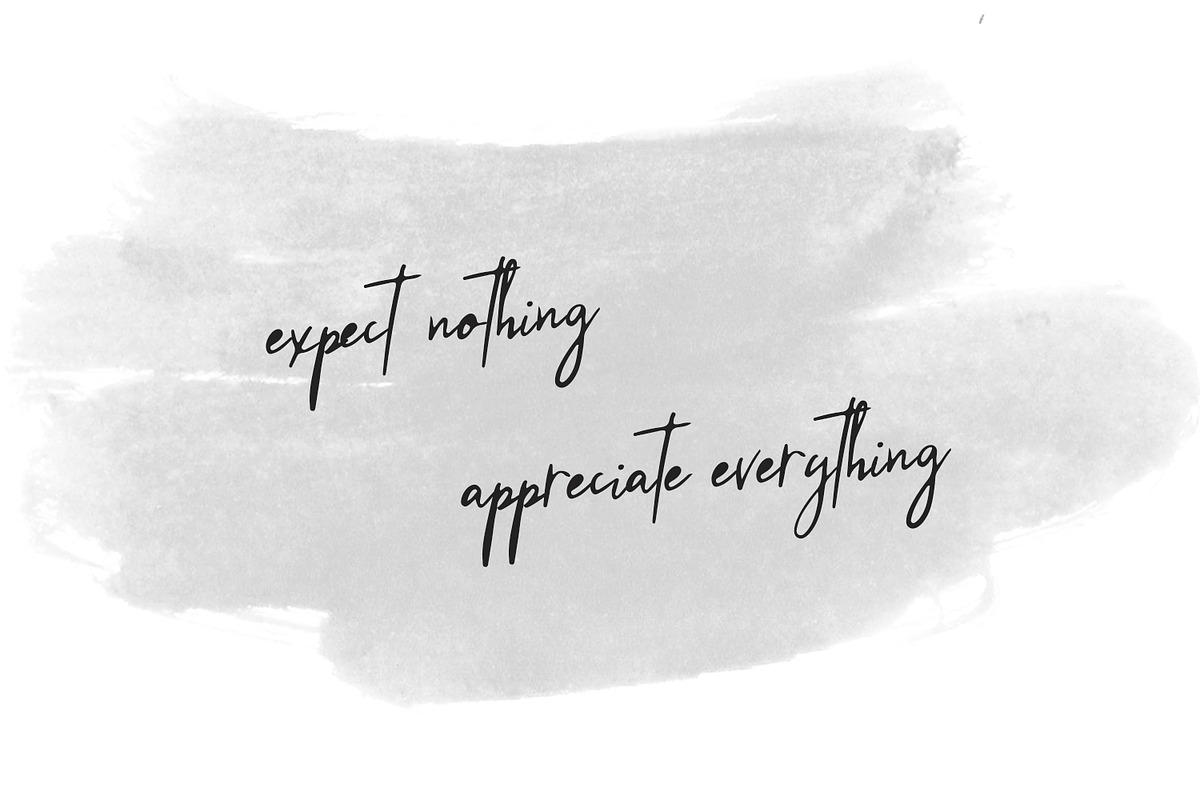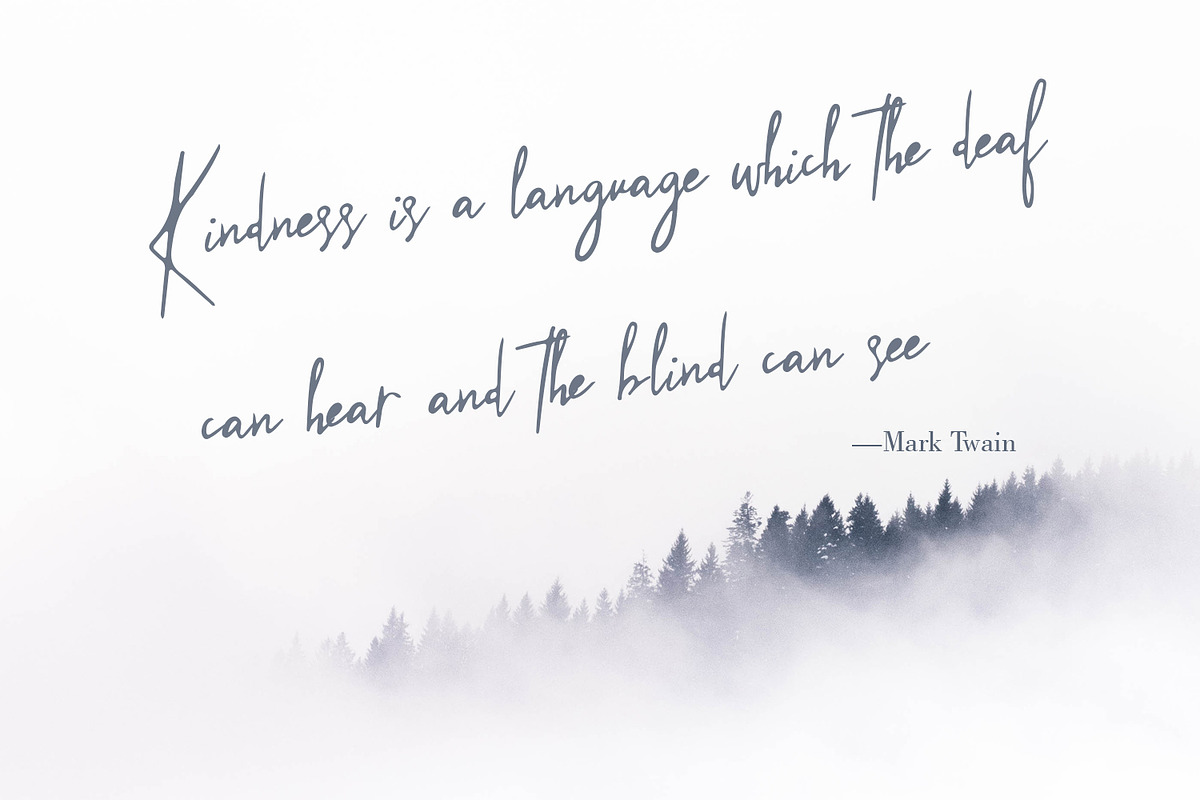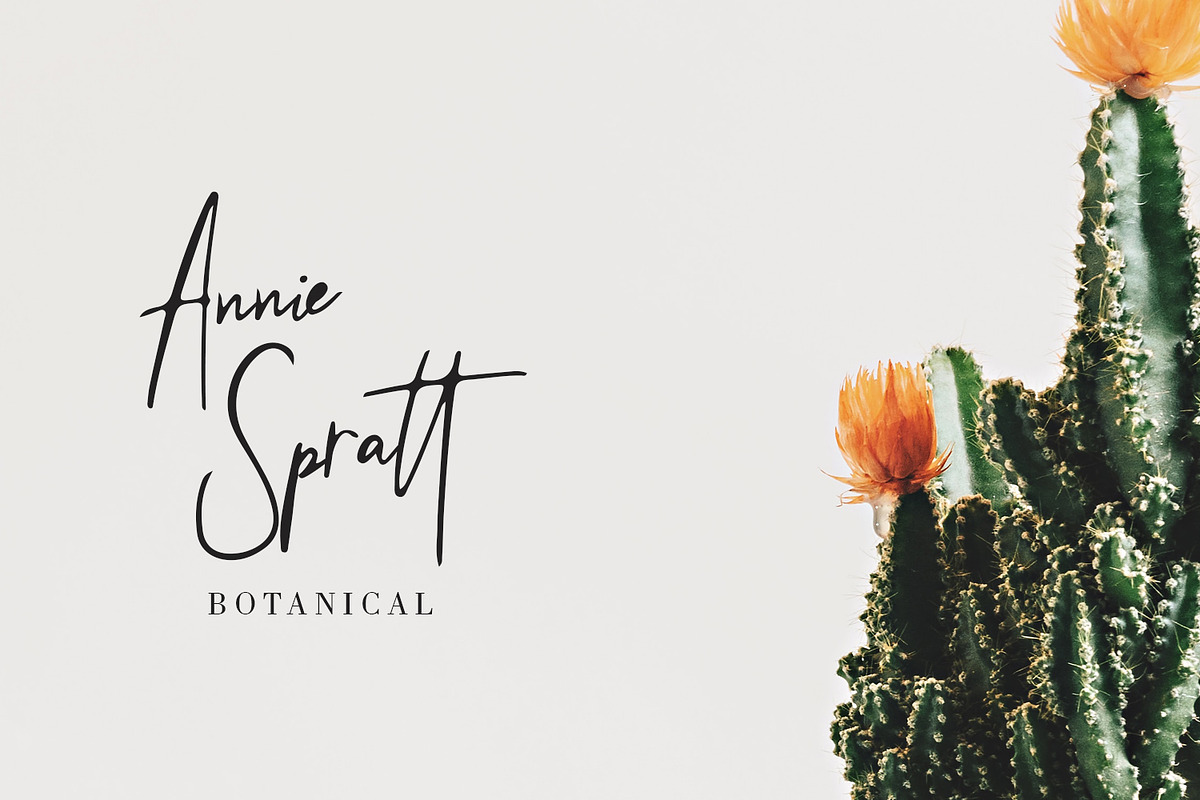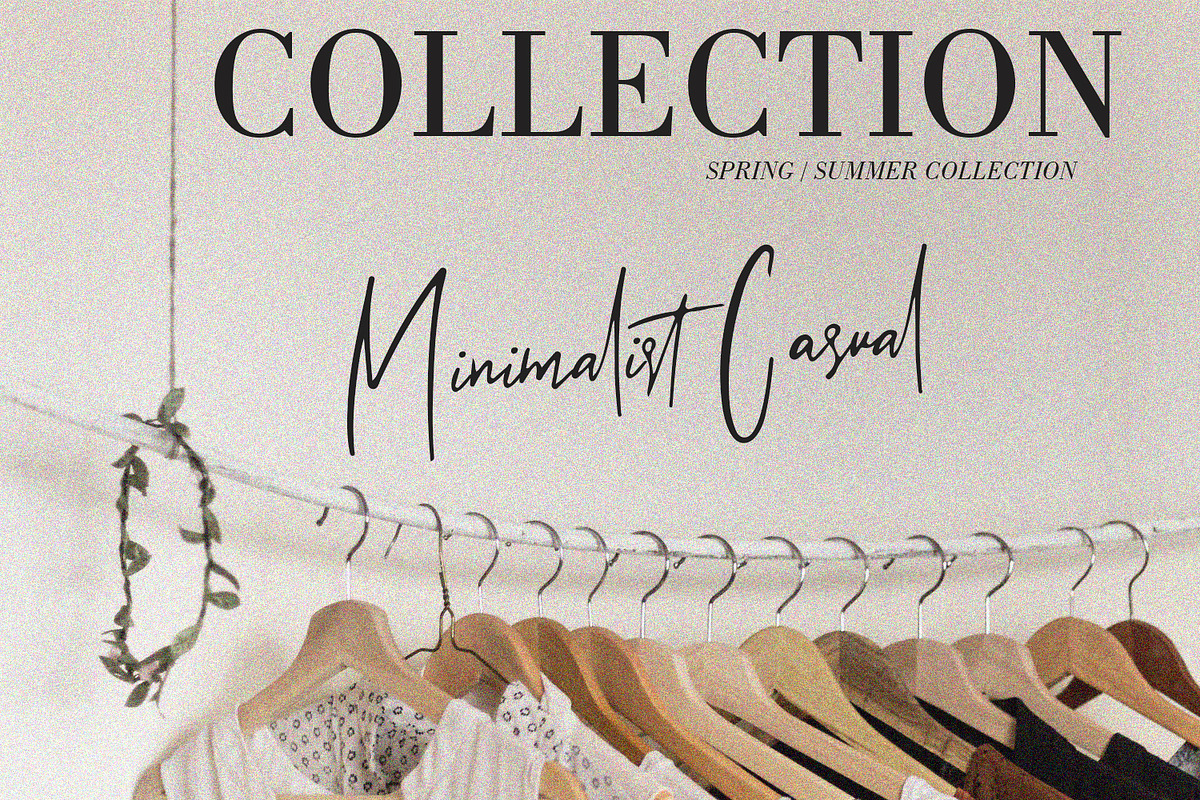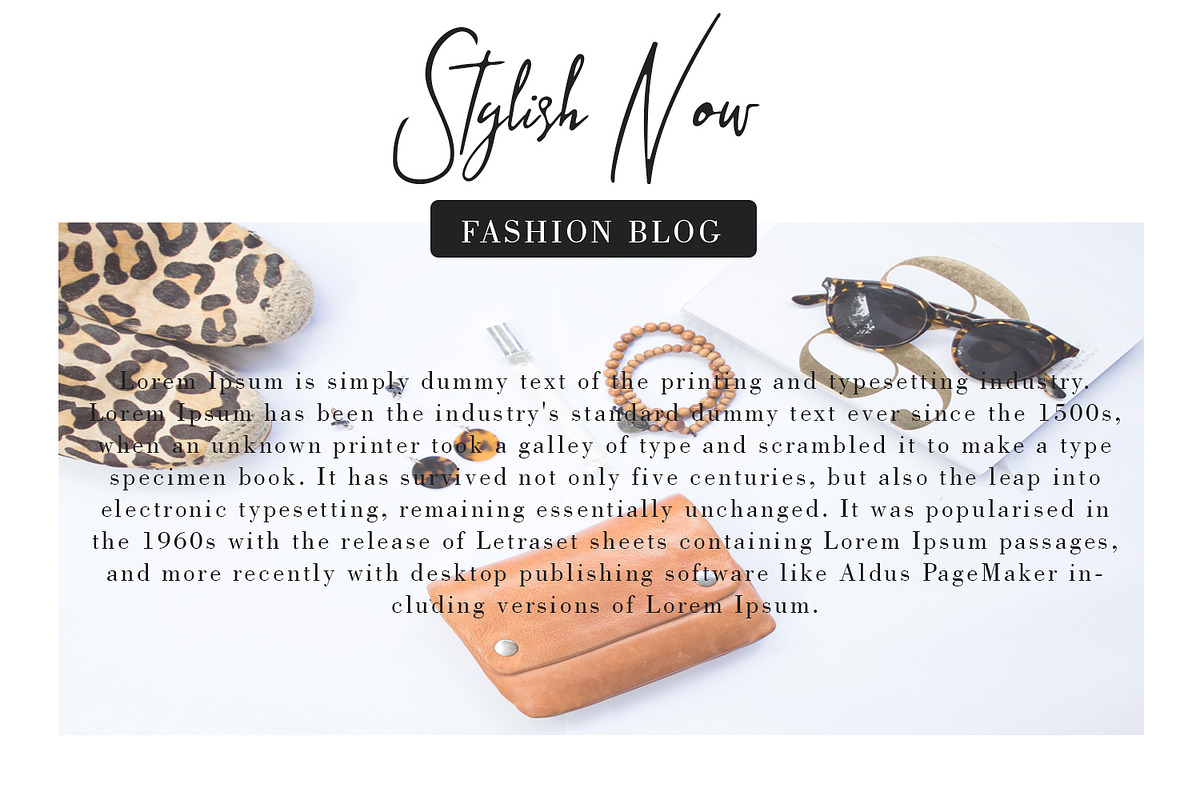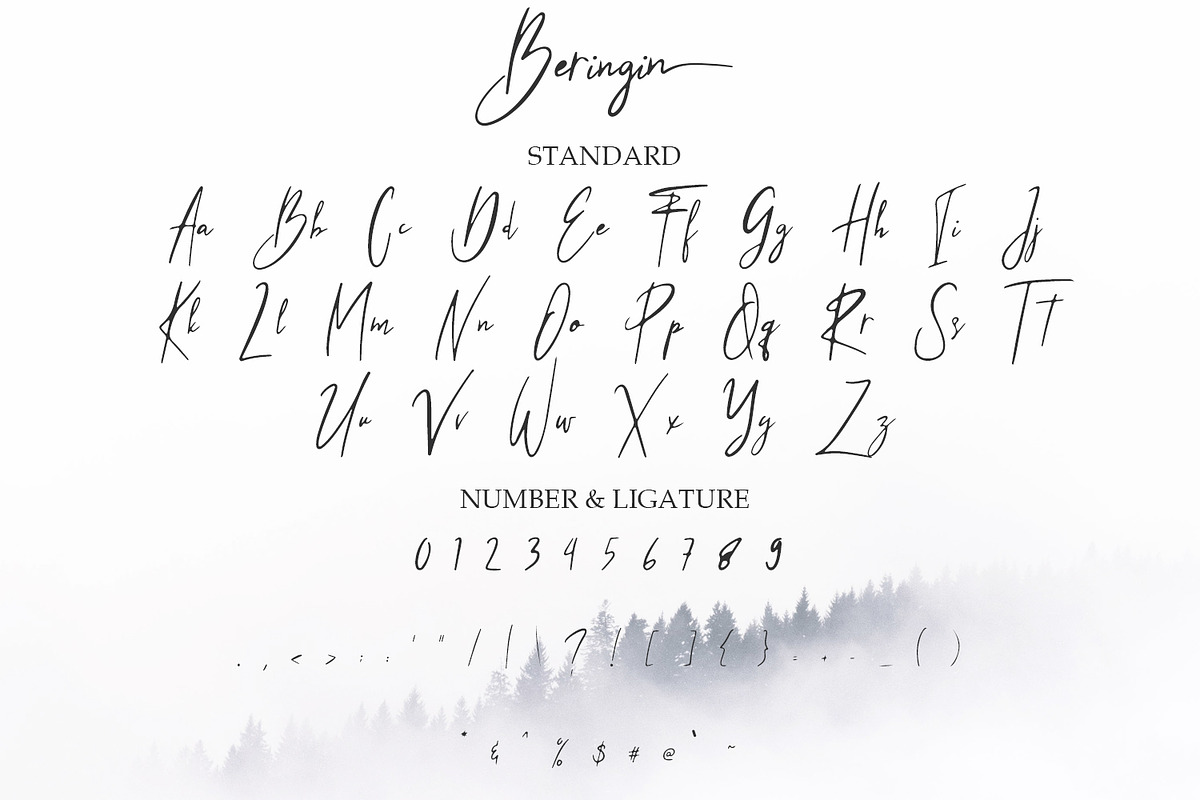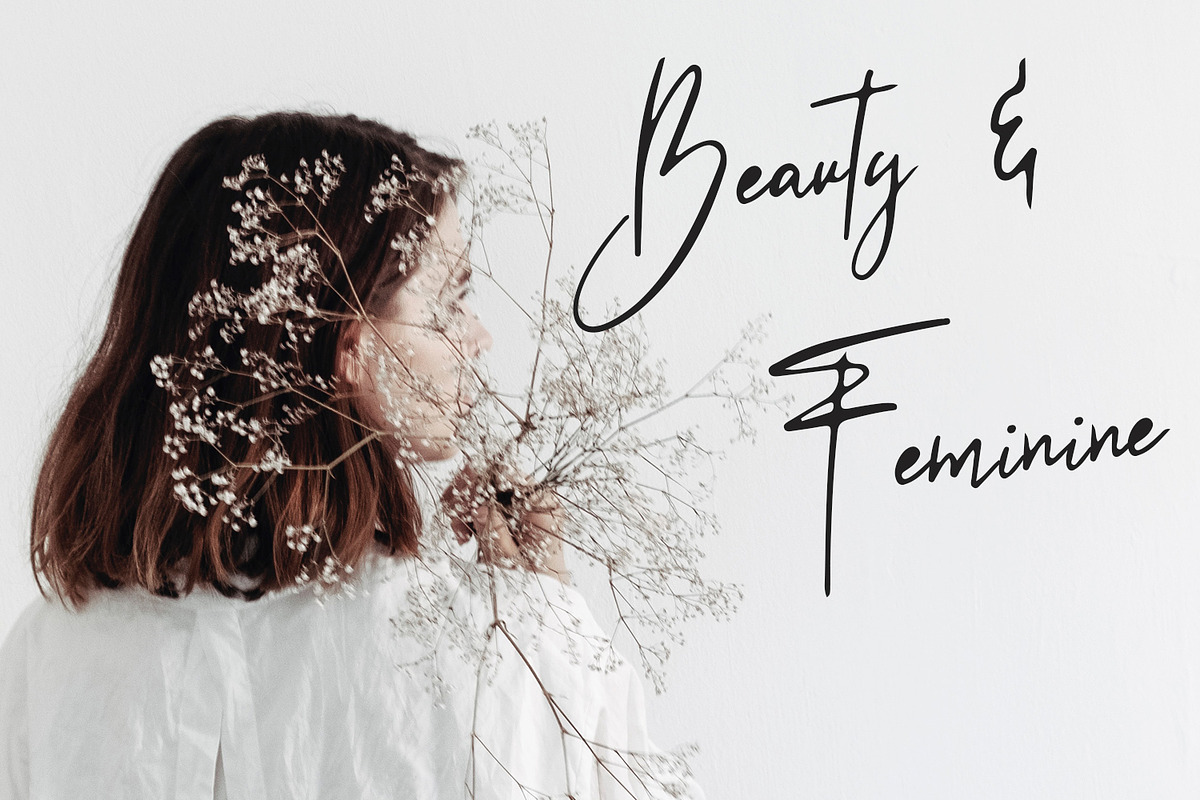
Beringin Stylish Signature Font
Beringin is a signature font that is unique, has an elegant style and is wrapped with an original hand stroke so it will be very suitable for your design project
Beringin Stylish Signature Font by Arendxstudio fits naturally into Branding, posters, packaging, typography.